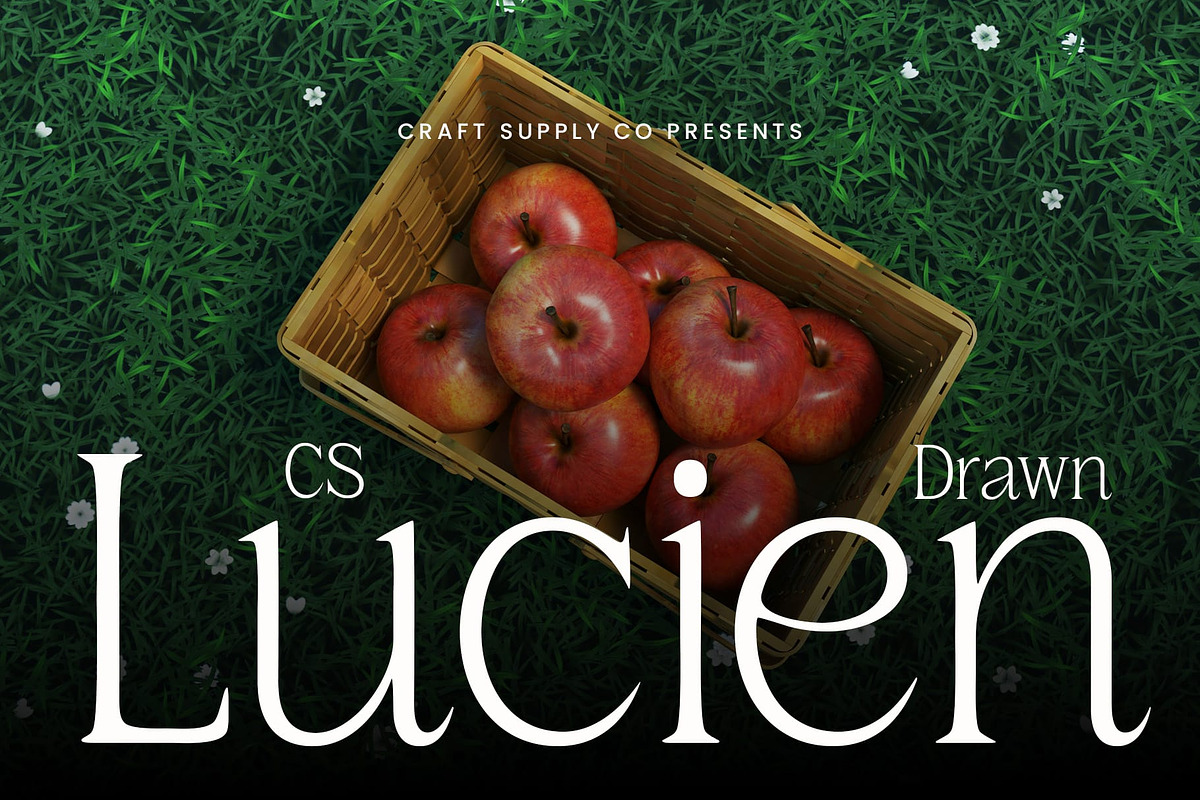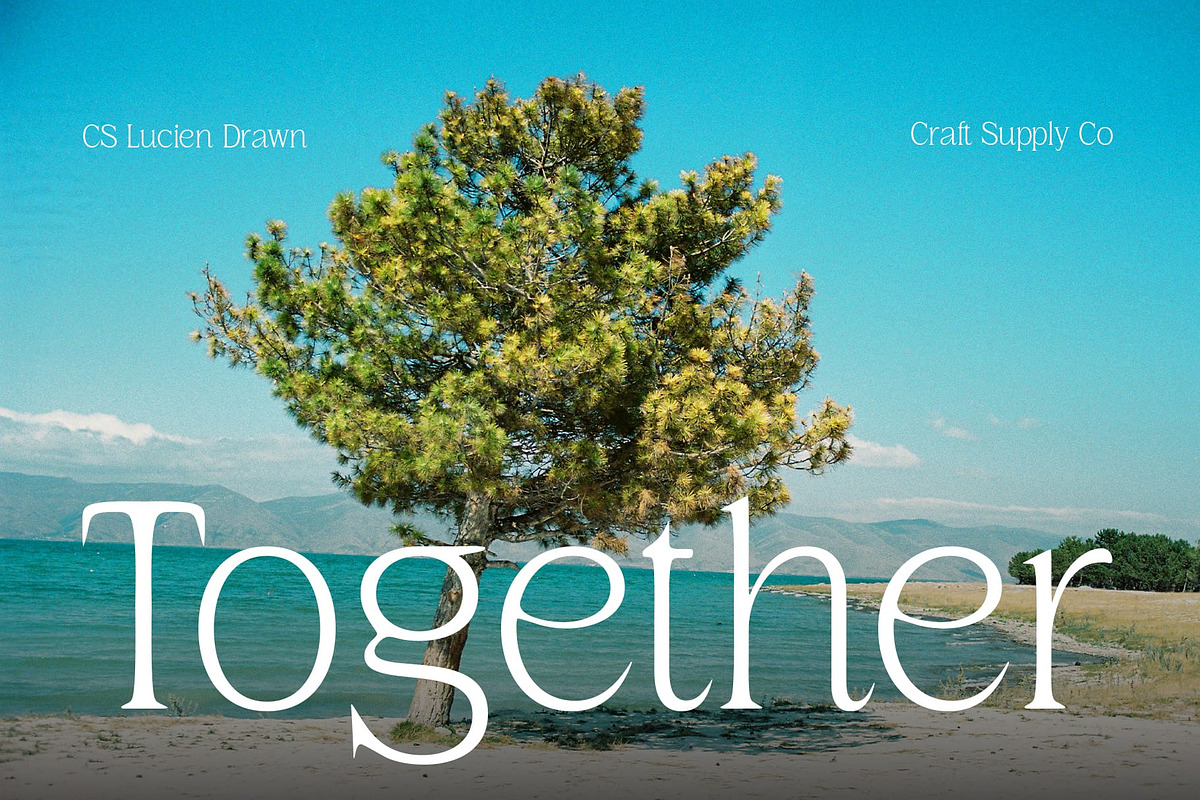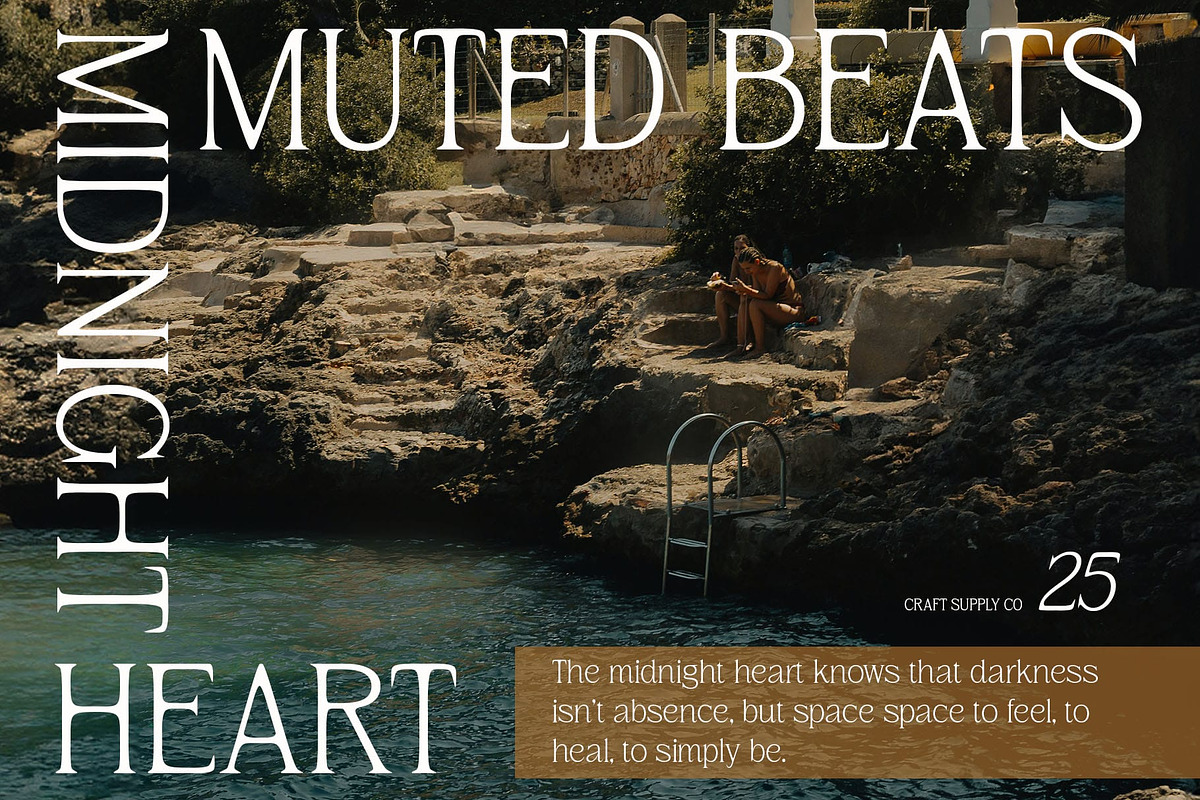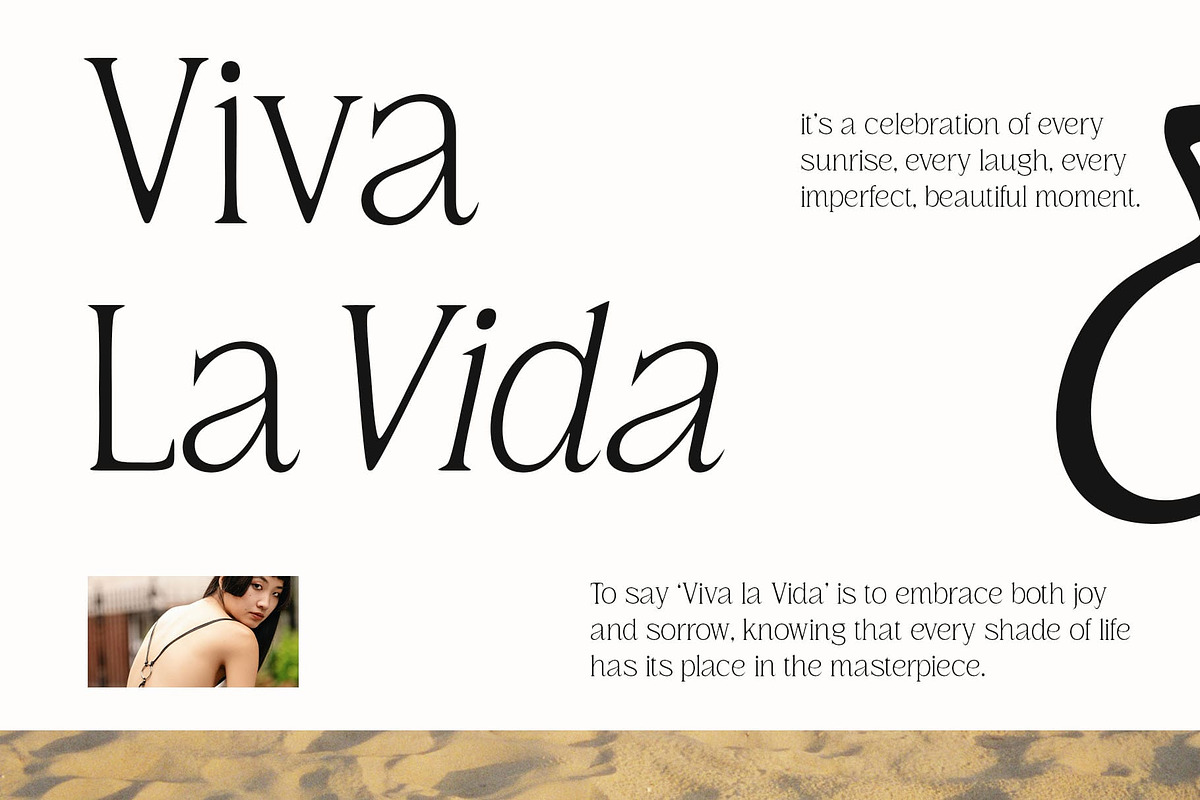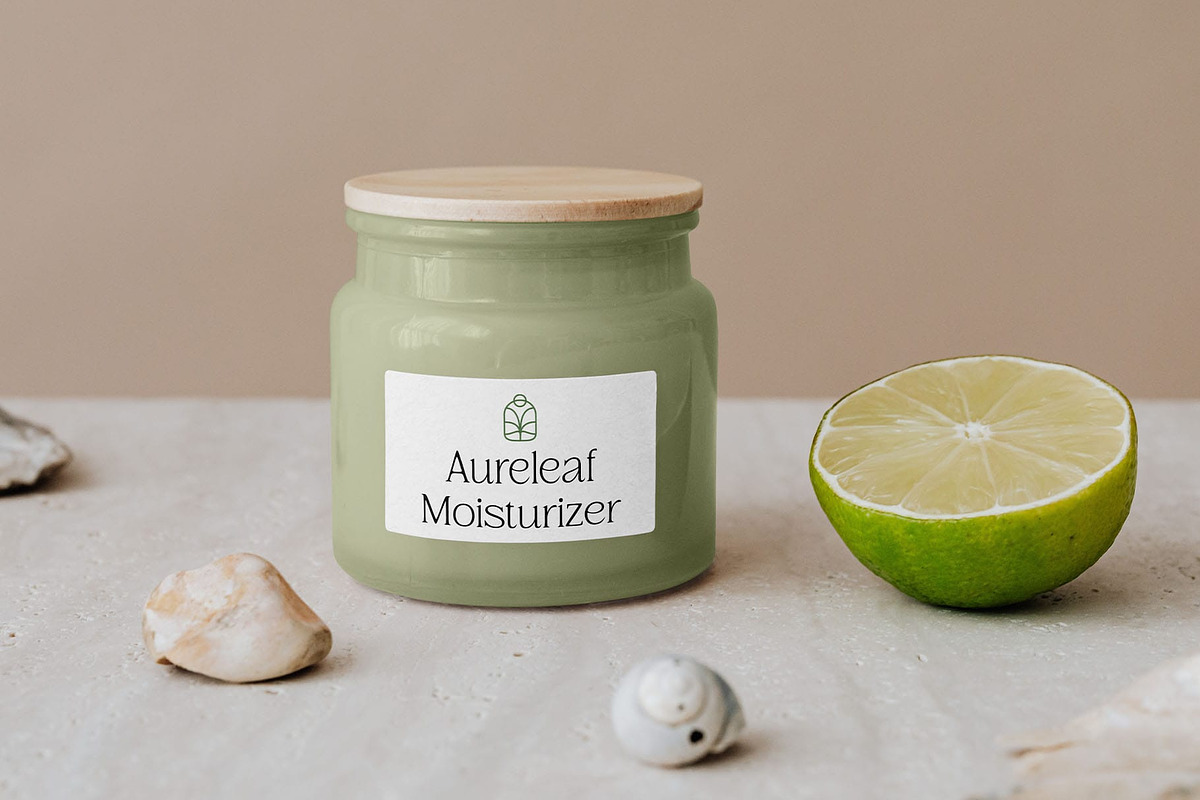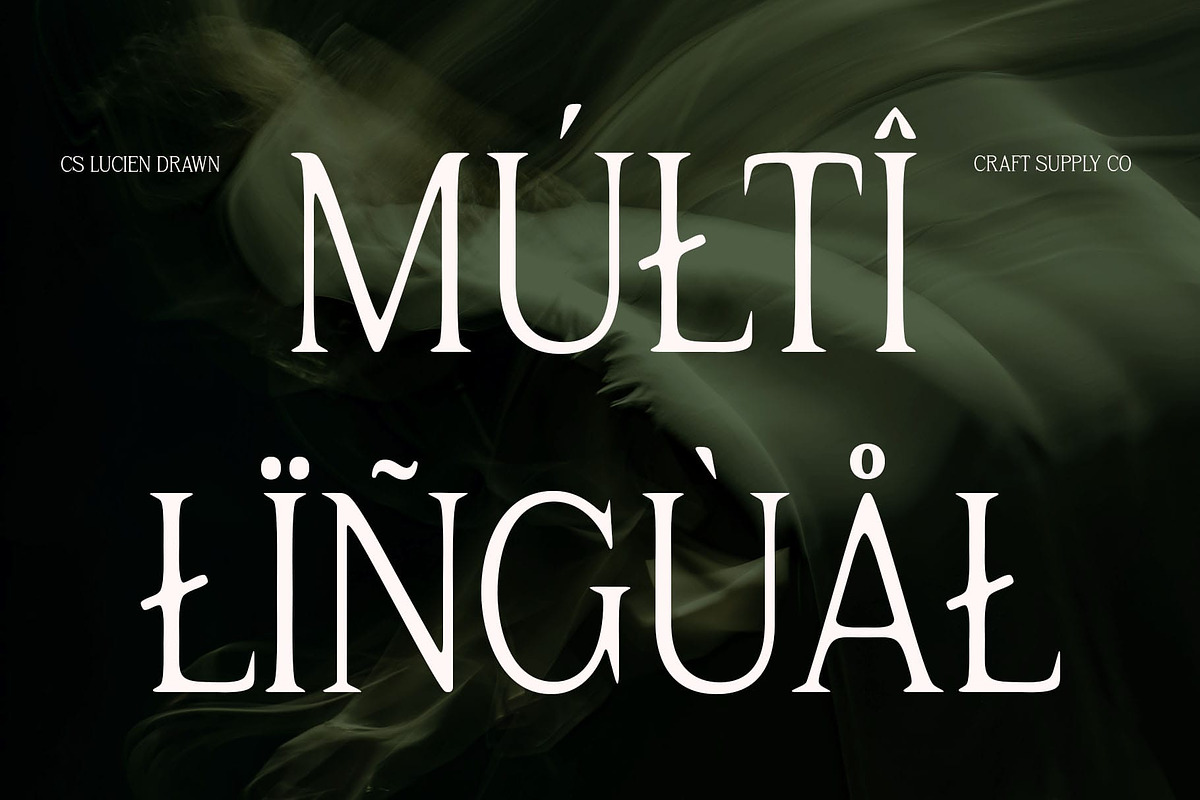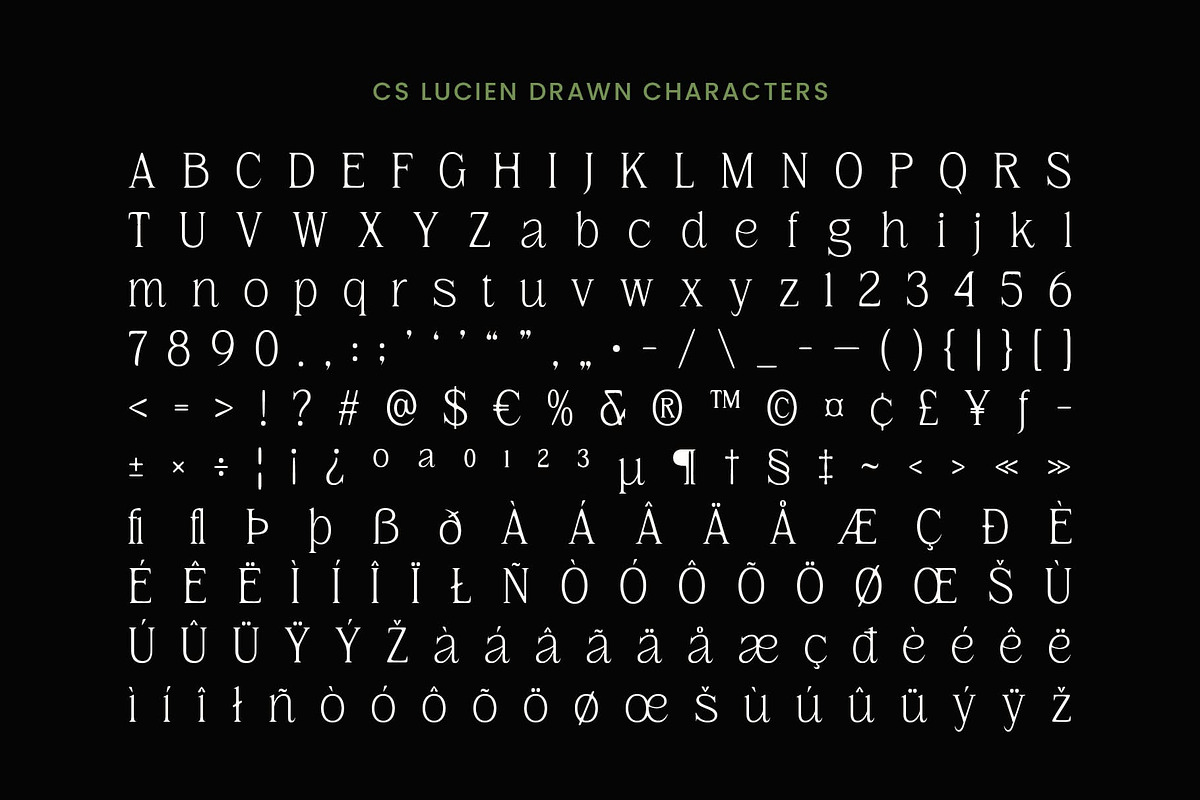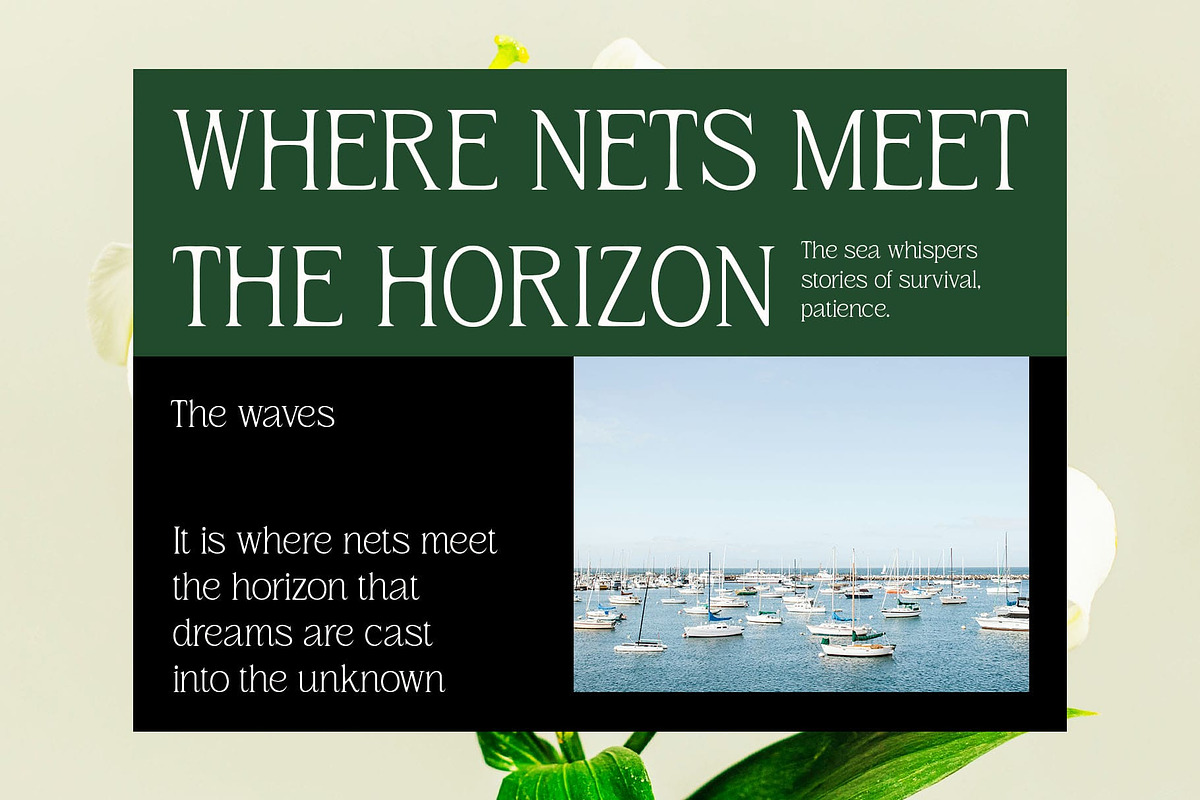
CS Lucien Drawn
CS Lucien Drawn: Sophistication Meets Artistic Craftsmanship
Sleek and Minimalist with Hand-Drawn Appeal This is a modern serif font that masterfully blends minimalist design with refined elegance. Its clean lines and sleek form create a sophisticated, contemporary aesthetic, while the unique hand-drawn effect adds texture and personality. This font offers a balanced mix of structure and artistry.
Refined and Artistic Design The combination of its modern serif structure and the organic texture of the drawn effect enhances the font’s overall appeal. This subtle touch of craftsmanship gives CS Lucien Drawn a distinctive look that maintains a level of sophistication and charm. Whether used in high-end branding or artistic projects, it brings depth and character to any design.
Ideal for Upscale Branding and Editorial Projects With its clean and polished form, this serif modern font is perfect for editorial designs, luxury branding, and premium visual identities. Its timeless yet contemporary character works seamlessly in editorial layouts, offering a professional and refined look for any project that demands elegance and style.
Perfect for Creative Projects Seeking Sophistication This font is an ideal choice for creative projects that require a sophisticated, artistic touch. Its modern yet artistic quality makes it suitable for high-end fashion, luxury brands, art galleries, or premium publications. this serif modern font elevates any design with its combination of simplicity, elegance, and artistic flair.